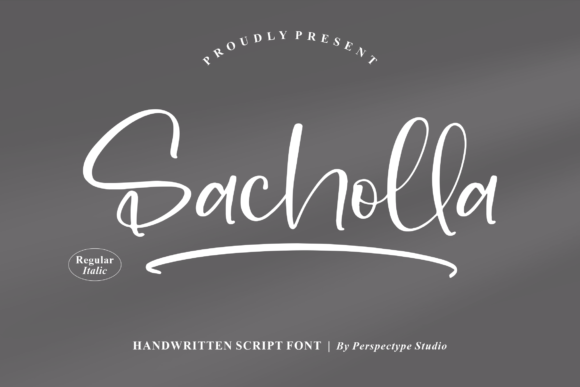
Immerse yourself in the world of Sacholla, a captivating script font that will leave a lasting impression on your creative projects. Designed by the talented team at Perspectype, Sacholla is a symphony of elegance, creativity, and versatility.
Journey through the possibilities and discover the beauty that awaits you with Sacholla. Whether you're crafting logos, branding projects, homeware designs, or product packaging, Sacholla will seamlessly elevate your designs with its timeless charm. Transform mugs, quotes, posters, and shopping bags into exquisite works of art. Sacholla breathes life into t-shirts, book covers, name cards, and invitations, adding a personal touch that will captivate your audience.
Unleash your creativity and explore the world of labels, photography, and watermarks with Sacholla. It's the perfect companion for special events and all your lovely projects that crave a touch of elegance. With Sacholla by your side, there are no limits to what you can achieve.
Embrace the power of Sacholla, a font that effortlessly blends beauty and functionality. Its PUA encoding unlocks a treasure trove of amazing glyphs and ligatures, empowering you to effortlessly add intricate details and flourishes to your designs. Experience the joy of seamless customization and bring your creative visions to life with Sacholla.
Indulge in the endless possibilities that await you with Sacholla. Its versatility knows no bounds, allowing you to effortlessly create designs that resonate with your unique style and vision. Explore the endless possibilities and unlock your creative potential with Sacholla today!